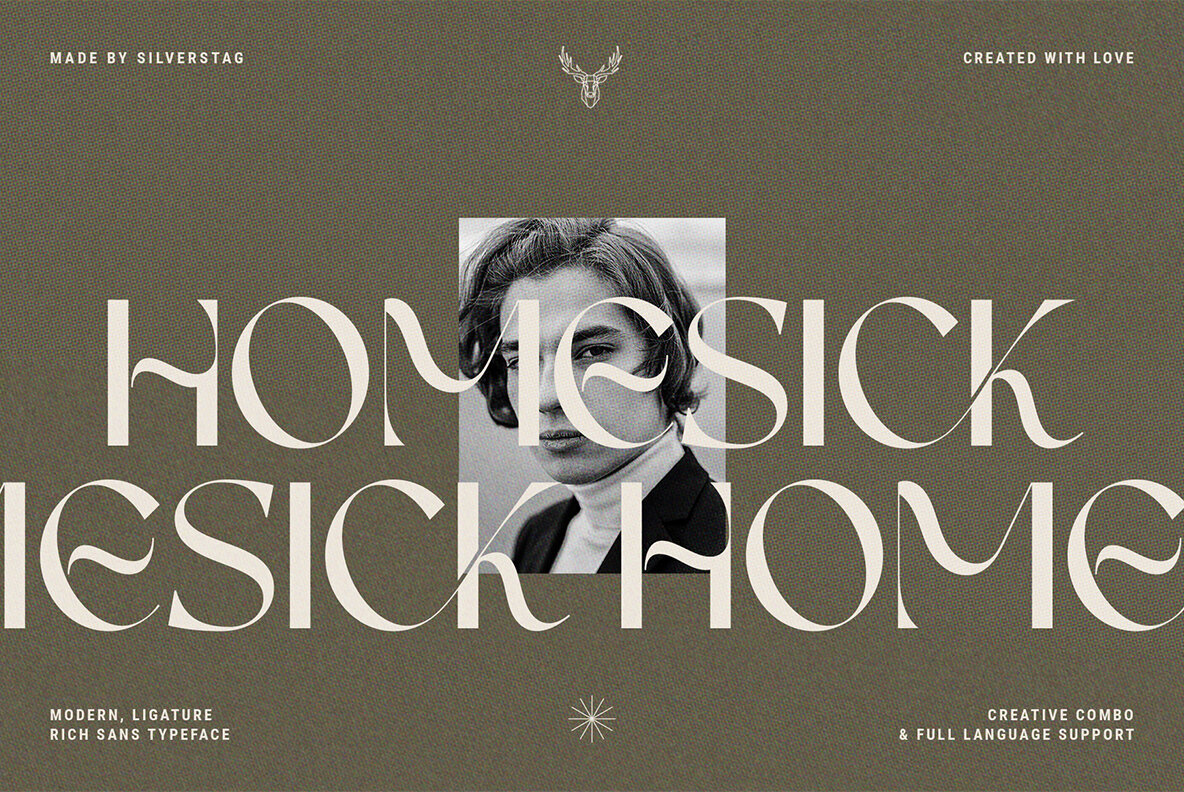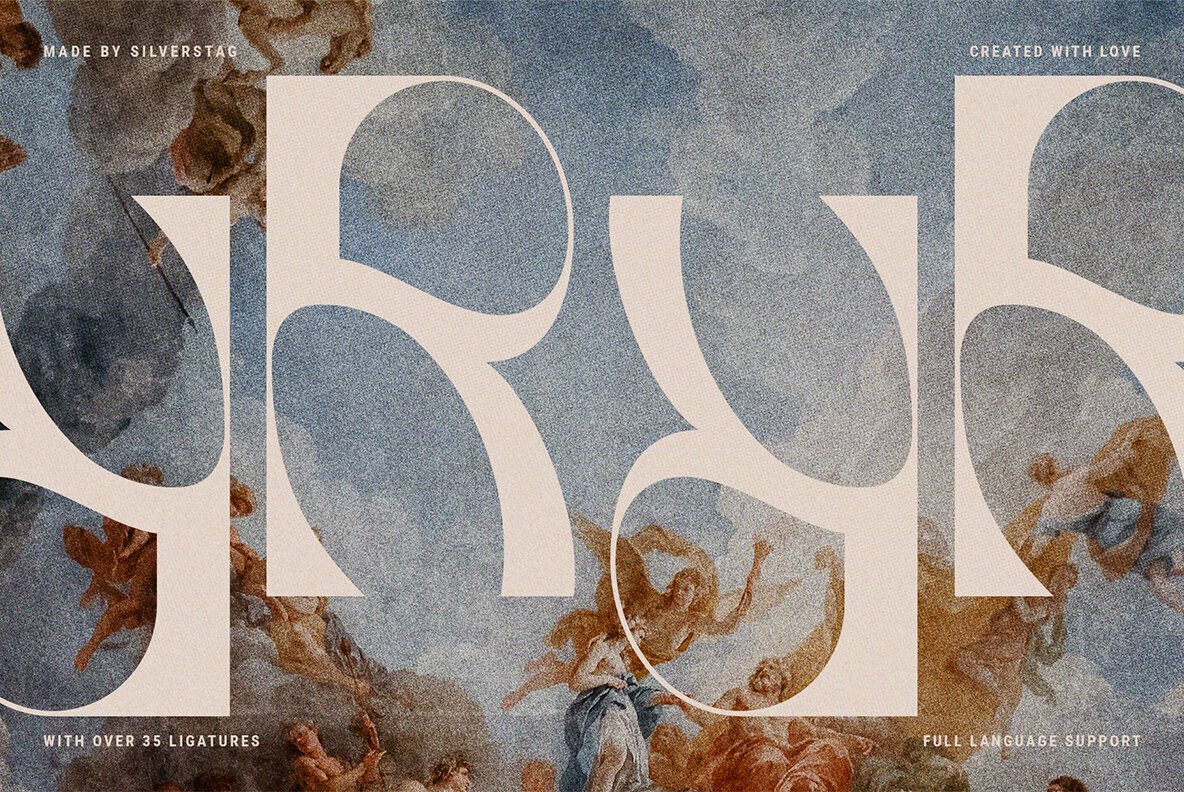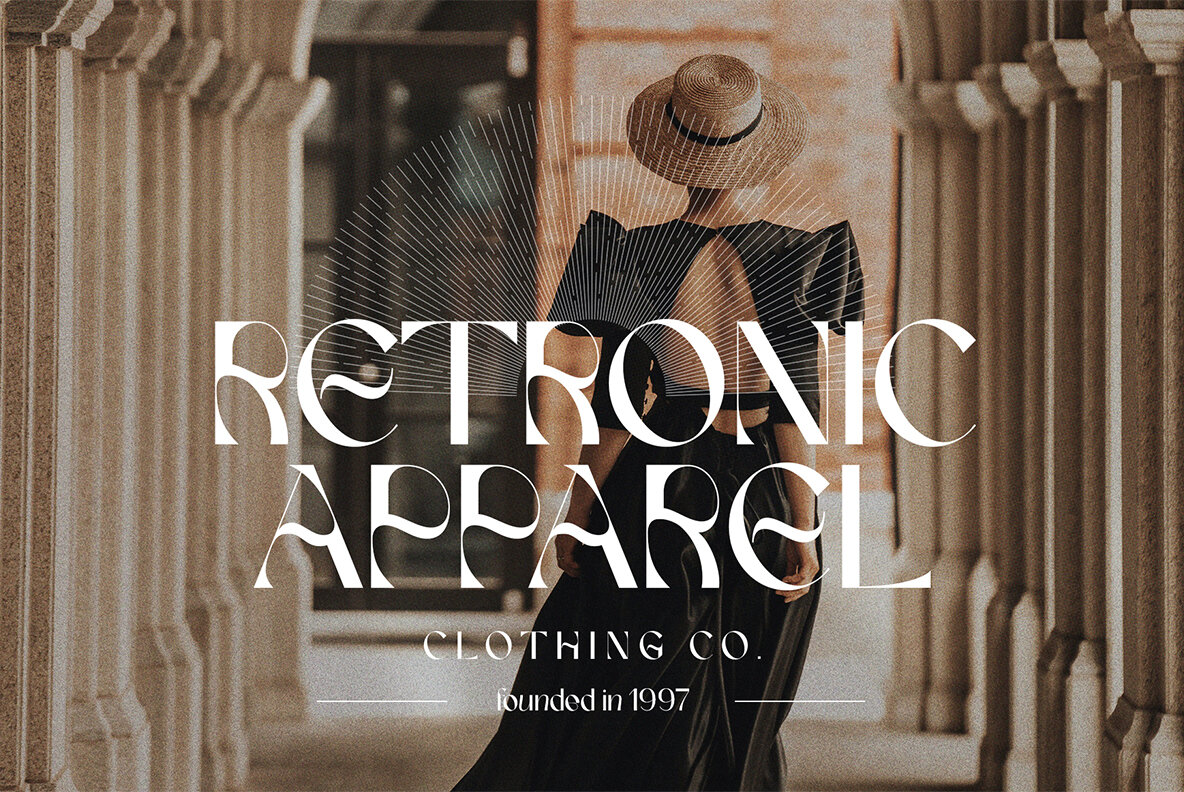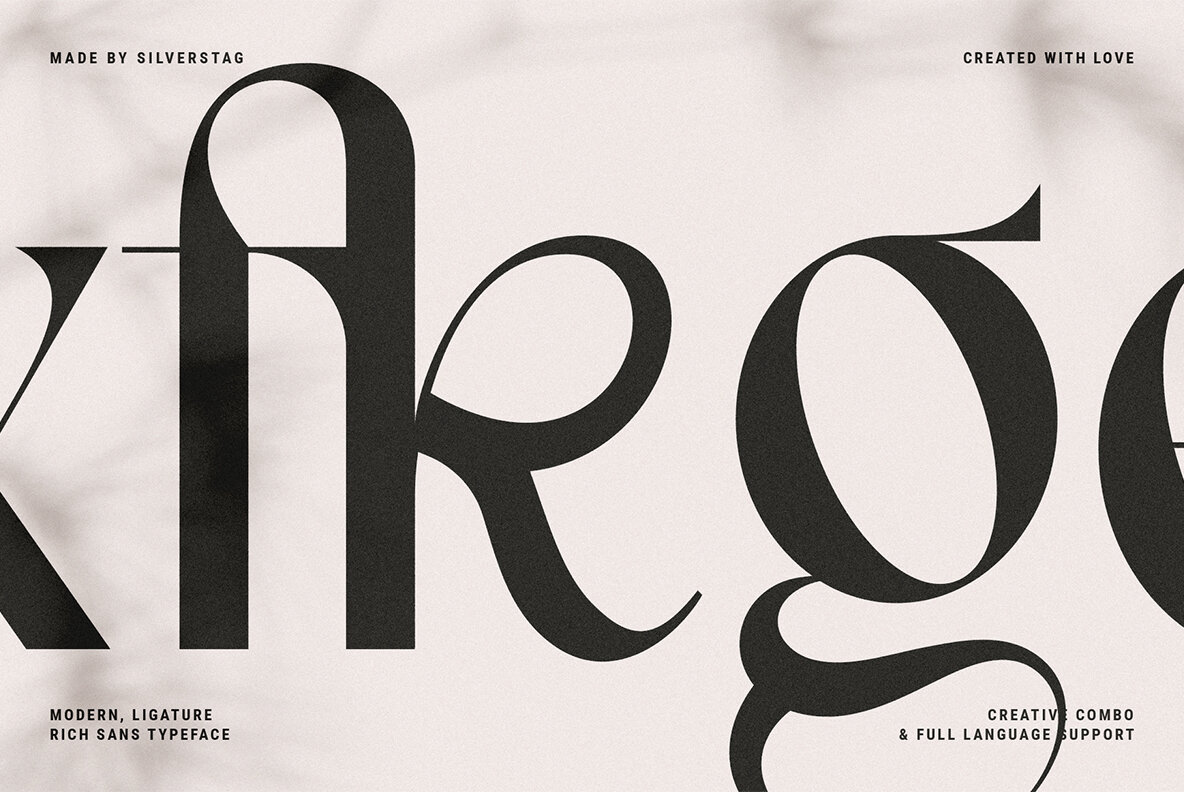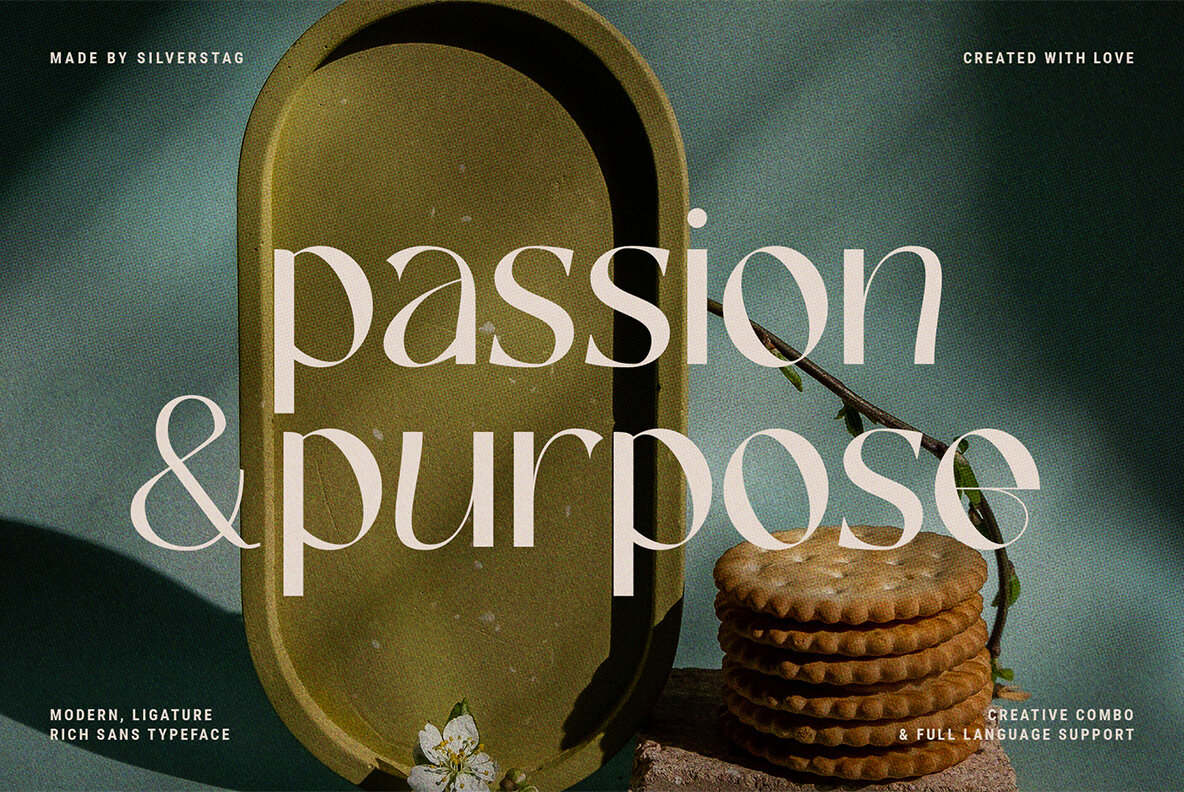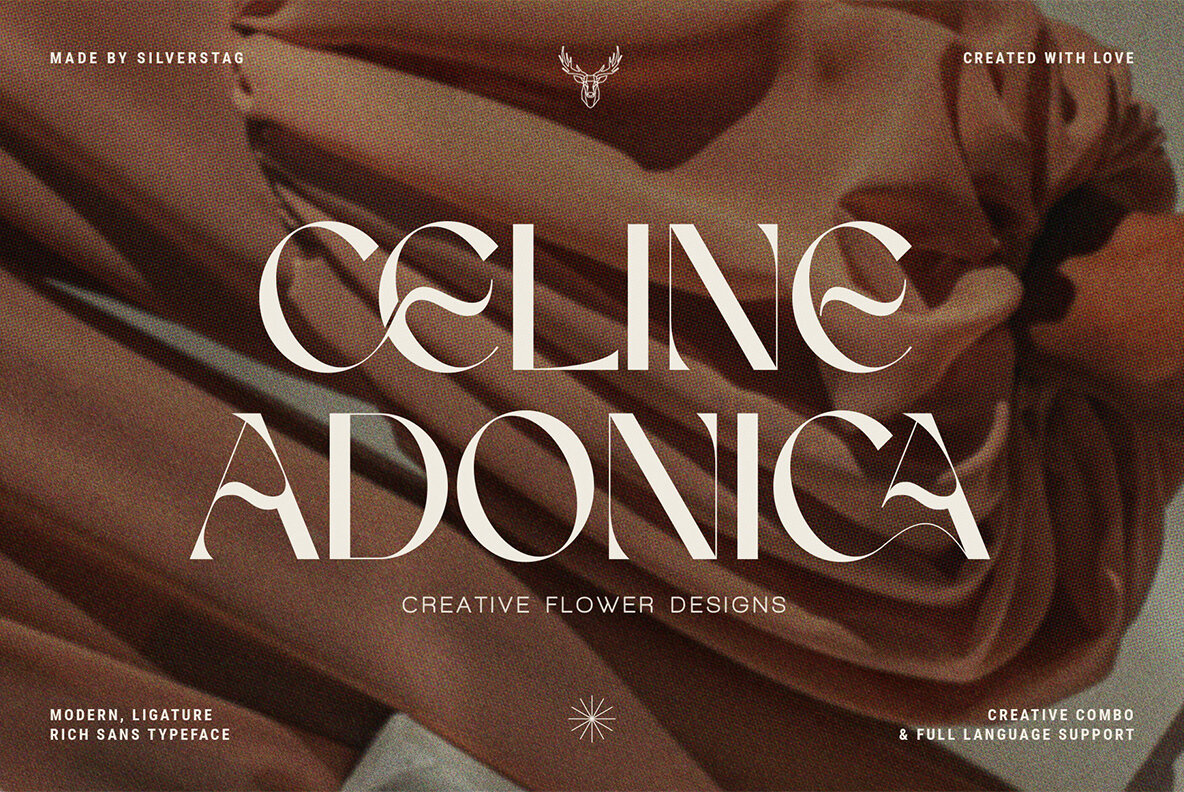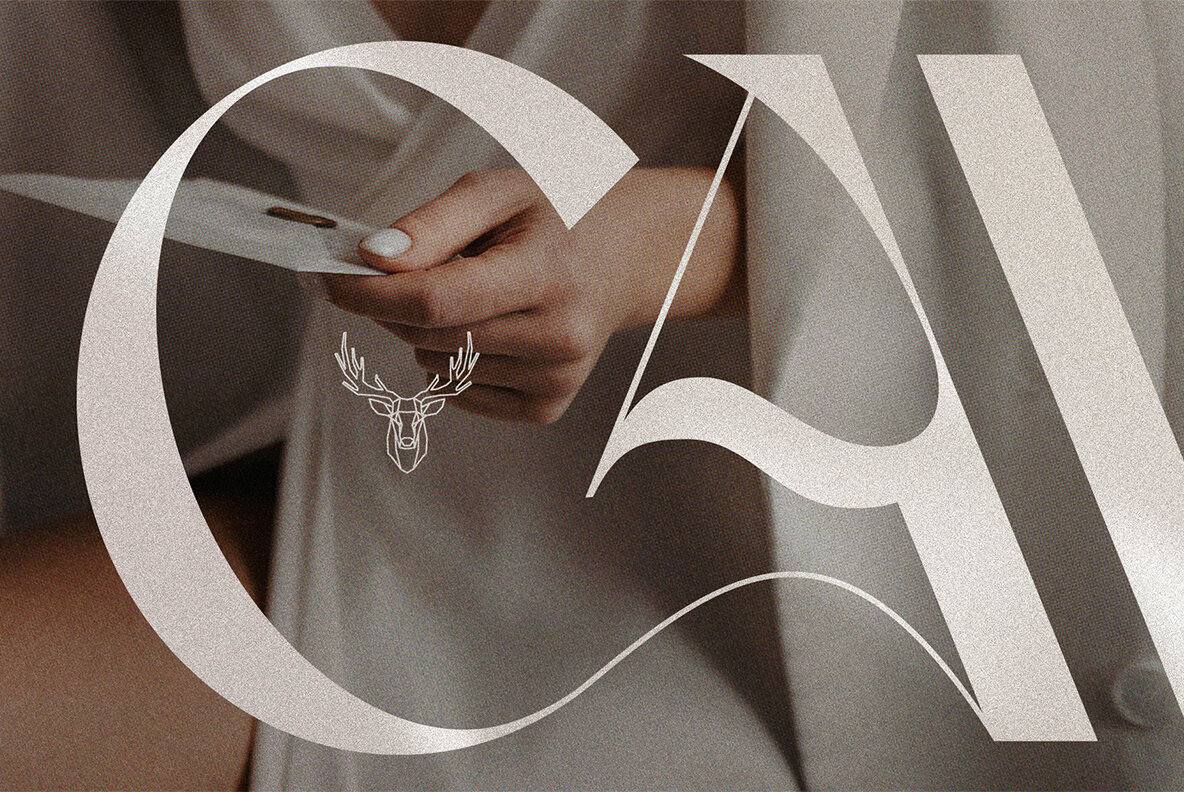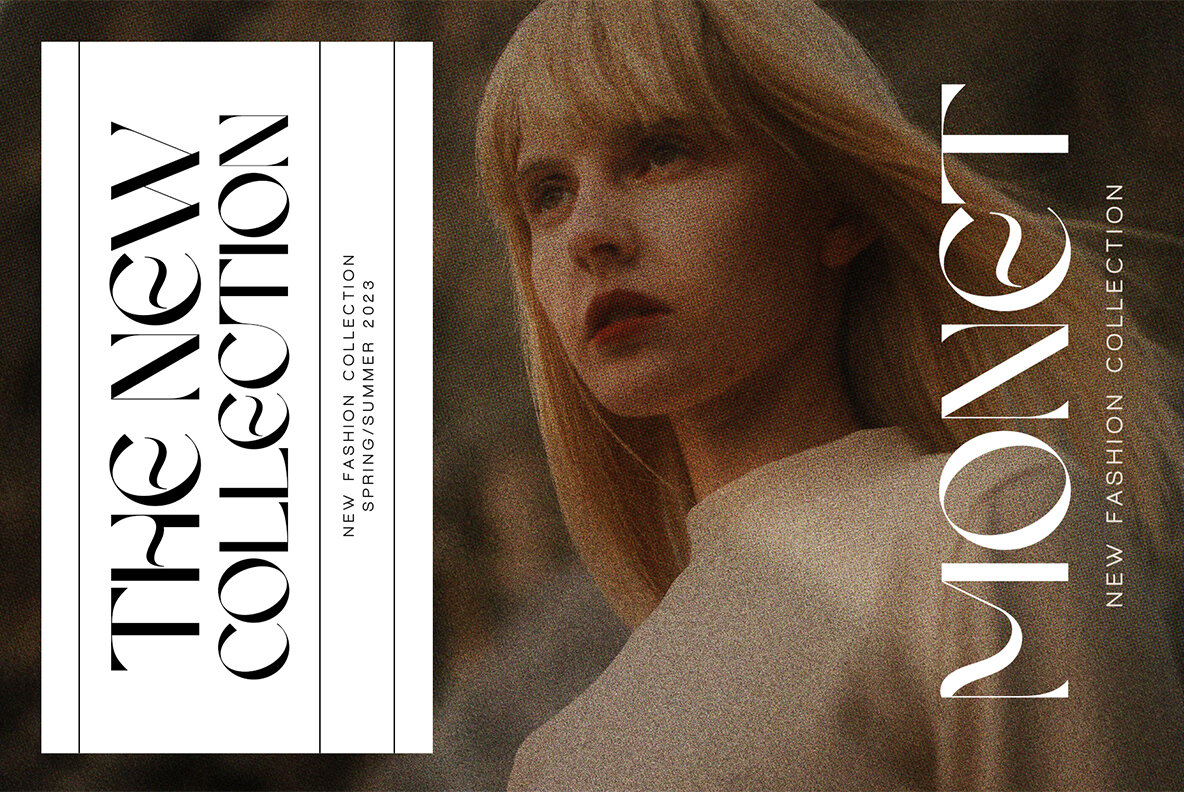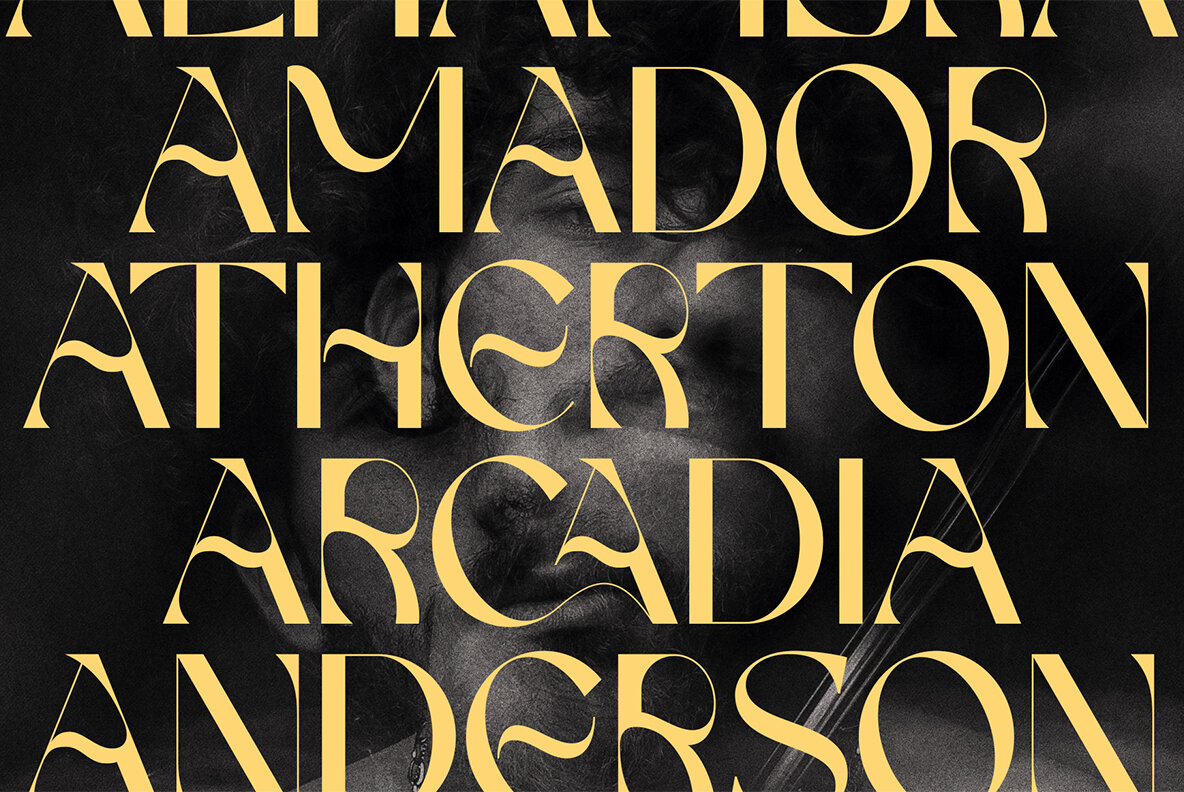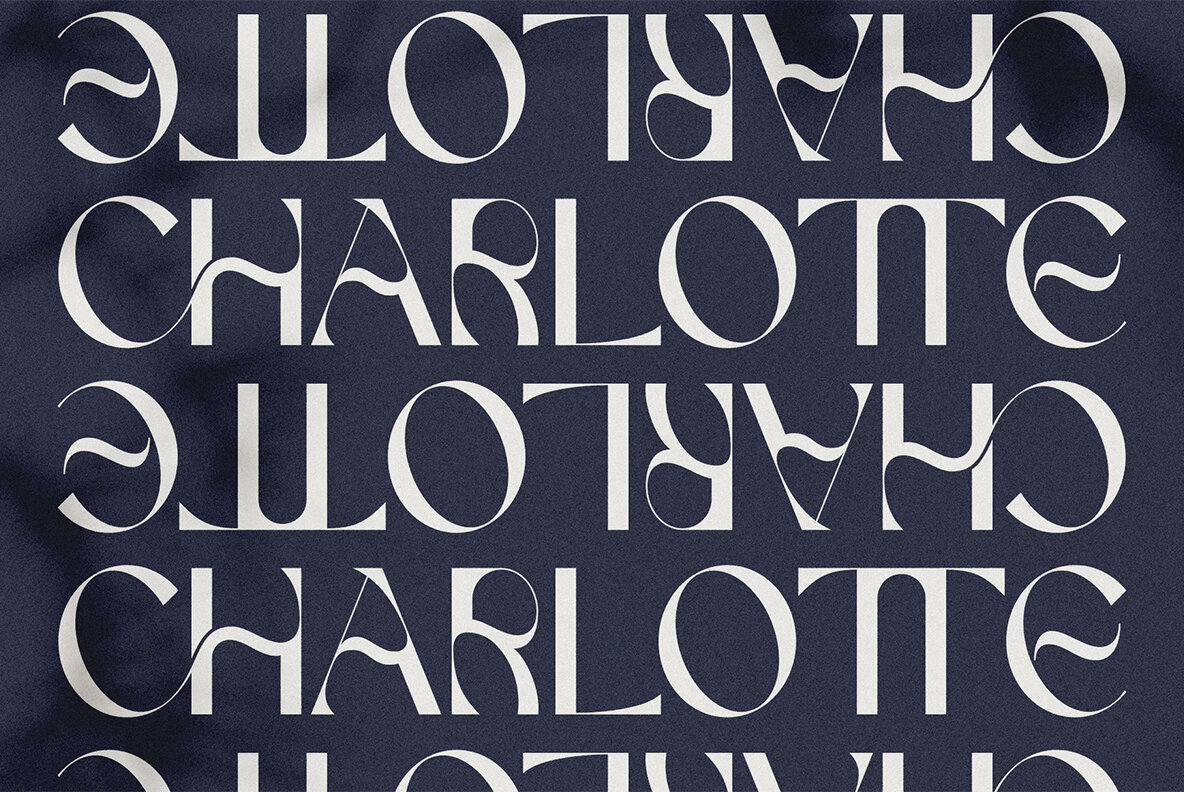
A Fabulous Decorative Font, Inspired by French Lifestyle: Its time once again to jump on the SilverStag, grab the horns and gallop! Today its the marvelous French Chateaux. Another Stag design inspired by France, you can see French architecture, vintage typefaces, modern shapes, fashion, and the globally revered French lifestyle in this fantastic font....